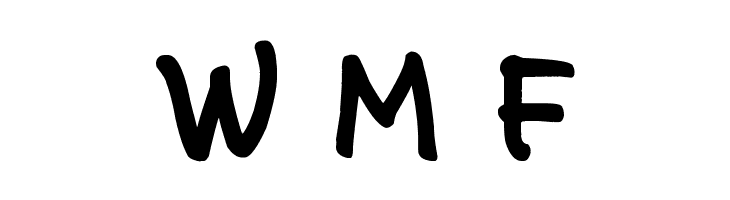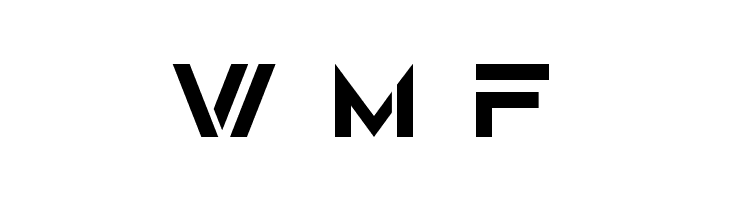
A futuristic, geometric outline font with tall, narrow characters.
A futuristic, sleek font with tall, narrow letterforms and a modern aesthetic.
A playful, hand-drawn font with bold, rounded characters and a whimsical style.
A futuristic, angular font with a bold, sci-fi aesthetic.
A futuristic, angular italic font with a sleek and dynamic design.
A decorative, alien-themed font with jagged, organic forms and a mysterious aesthetic.
A bold, futuristic font with geometric shapes and sharp angles.
A bold, futuristic italic font with sharp angles and tight spacing.
A bold, futuristic font with geometric and rounded letterforms.
A playful and decorative icon set of alien heads and UFO symbols.
A whimsical set of alien-themed icon characters with playful designs.
A whimsical, alien-themed decorative font with unique character designs.
A playful and decorative font with alien-like character designs.
A whimsical and decorative font featuring unique cartoonish characters.
A playful, cartoon-like decorative font with unique character designs.
A playful, futuristic font with bold strokes and dot connections.
A bold, spiky font with a playful and textured appearance.
A bold, futuristic font with a unique outlined, three-dimensional style.
A bold, condensed font with a modern and sleek design.
A bold, condensed font with geometric letterforms and uniform stroke width.
A bold, modern font with thick, uniform strokes and a slightly condensed style.
A modern, tall, and narrow font with a sleek, minimalistic design.
A bold, impactful font with strong strokes and a slightly condensed appearance.
A tall, narrow font with a modern and sleek design, featuring elongated characters and uniform spacing.
A modern, thin, and elongated font with a sleek, minimalistic style.
A tall, narrow, and modern font with consistent stroke width and tight spacing.
Extraterrestrial-themed decorative font with alien heads and symbols.
A bold, angular font with a futuristic and geometric design.
A pixelated, knitted-style font with a retro, handcrafted look.